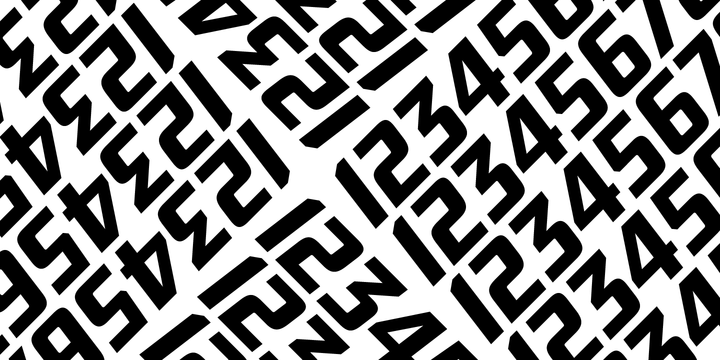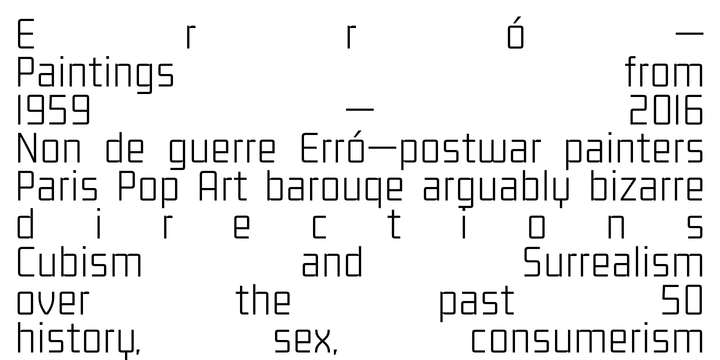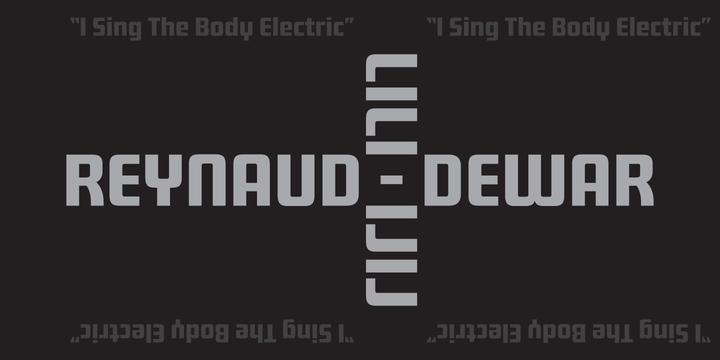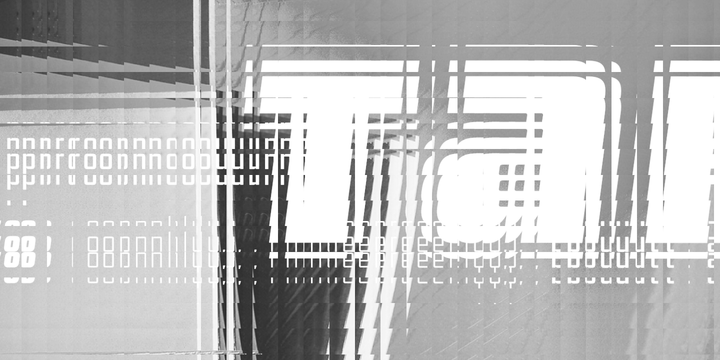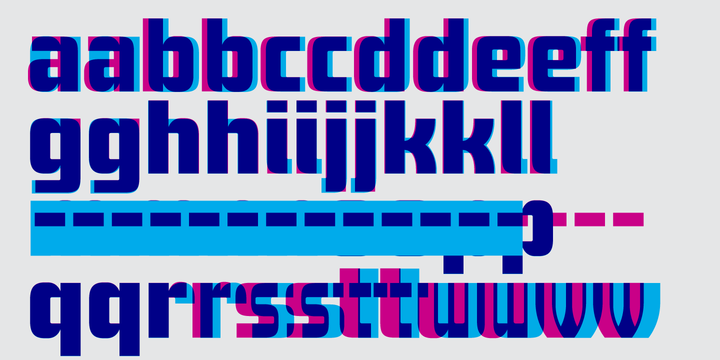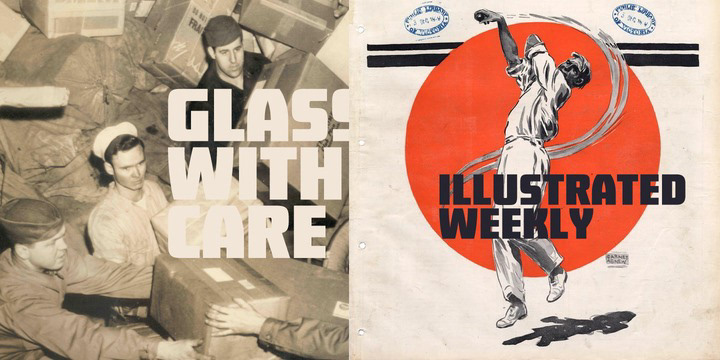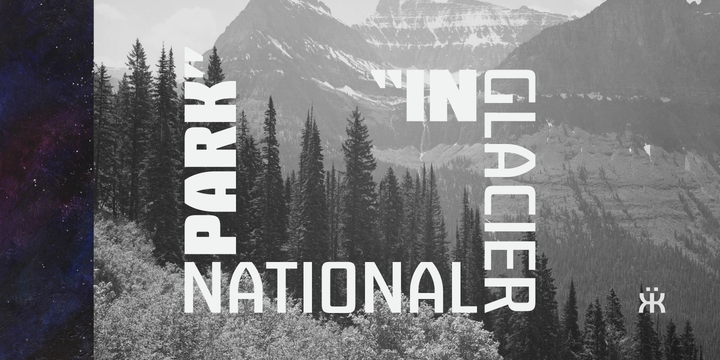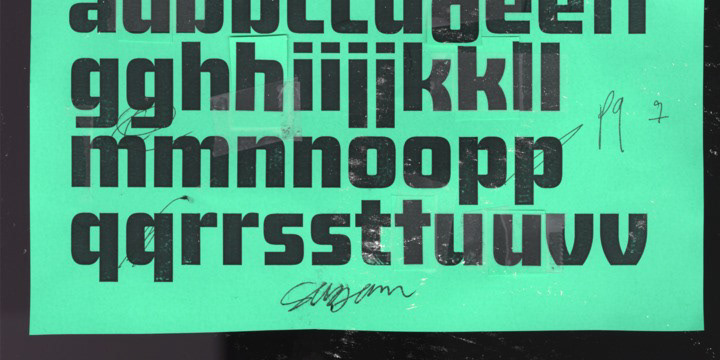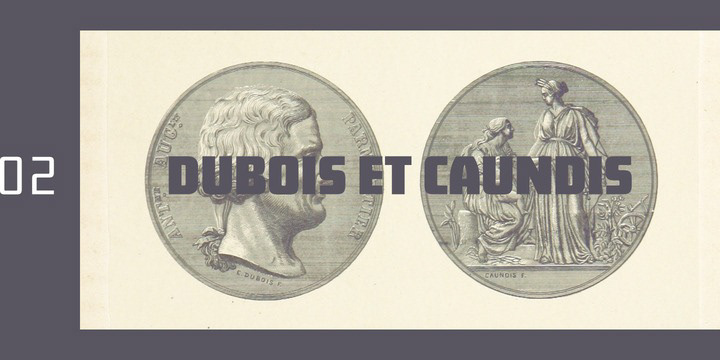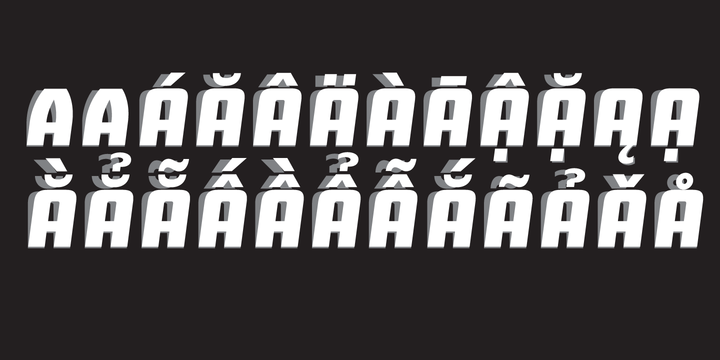
Sagan — Typeface
Sagan was designed as an alternate to Ramsey; you could call them brothers. It was drawn, redrawn, and expanded on, to put it lightly. It boasts 770 glyphs in each weight, covering all European languages, and also contains an extended Cyrillic. Sagan provides advanced typographical support with features such as case-sensitive forms, old style numerals, fractions, and many alternate glyphs. Like all of our typefaces, Sagan is fun to use. Sagan has 7 weights, with accompanying italics for each weight, ranging from Extra Light to Black. It is ideally suited for branding, editorials, advertising, packaging, posters, billboards and digital screen design. Sagan will work hard for your brand or project. Make a statement that demands notice.